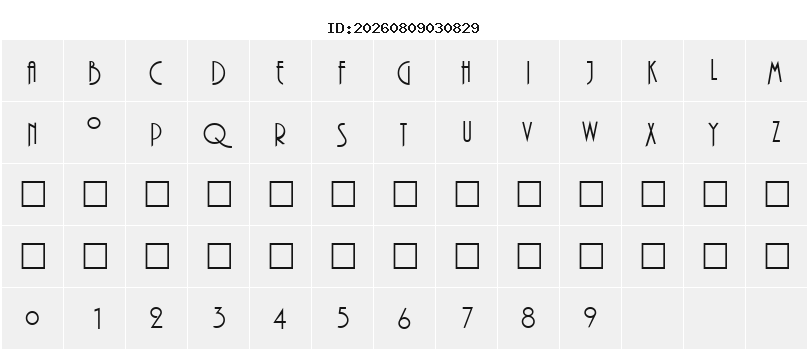
About PiazzaSwash.ttf
PiazzaSwash.ttf is a modern, elegant sans-serif font designed for ultimate readability and visual harmony. Perfect for branding, headlines, web design, and print materials.